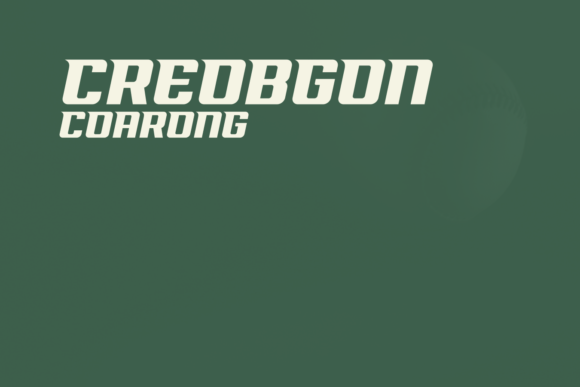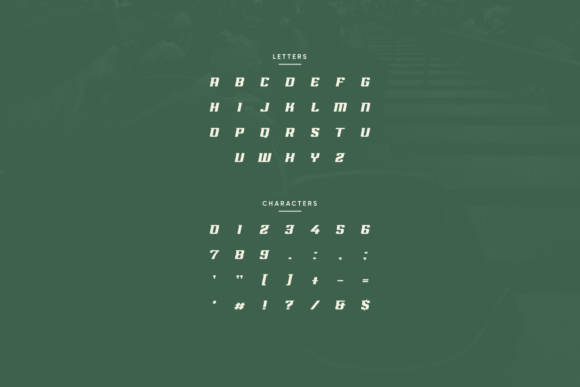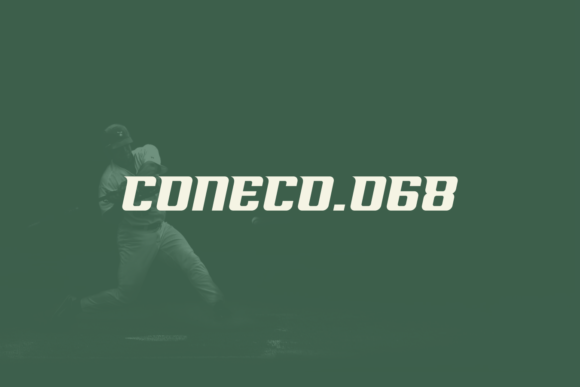
Introducing Groger Font: The Ultimate Modern Sport Font for Designers
In the world of typography, fonts play a crucial role in conveying the tone and personality of a design. For designers and crafters looking to add a touch of speed, racing, and roaring machines to their work, Groger Font is the perfect choice. This modern sport font is designed to evoke the thrill of high-octane action, making it ideal for sports themes, logos, headlines, posters, movie titles, magazines, and various other types of designs that require a strong and standout shade.
The Design and Features of Groger Font
Groger Font is an all-caps font that exudes power and energy with its strong, sharp corners and solid shape. The pointy corners of this font give it a unique and aggressive look, making it perfect for designs that require a bold statement. With its sleek and modern design, Groger Font is sure to grab attention and leave a lasting impression on your audience.
The Inspiration Behind Groger Font
Groger Font is inspired by the world of racing and high-performance machines. The font’s design is reminiscent of the speed and agility of sports cars, making it perfect for designers who want to convey a sense of speed and power in their work. Whether you’re designing a logo for a racing team or creating a poster for a sports event, Groger Font is the perfect choice.
Key Benefits of Using Groger Font
- Perfect for sports themes: Groger Font is designed specifically for sports-themed designs, making it the perfect choice for logos, posters, and other materials.
- All-caps design: The all-caps design of Groger Font makes it perfect for headlines, titles, and other applications where you want to make a bold statement.
- Strong and sharp corners: The strong and sharp corners of Groger Font give it a unique and aggressive look that is sure to grab attention.
- Solid shape with pointy corners: The solid shape and pointy corners of Groger Font make it perfect for designs that require a bold and powerful look.
Use Cases for Groger Font
Groger Font is a versatile font that can be used in a variety of design applications, including:
- Logos: Use Groger Font to create a bold and powerful logo for your sports team, racing team, or sports brand.
- Posters: Create eye-catching posters for sports events, racing tournaments, or fitness campaigns with Groger Font.
- Headlines: Use Groger Font to create bold and attention-grabbing headlines for your sports-themed designs.
- Movie titles: Add a touch of excitement and energy to your movie titles with Groger Font.
- Magazines: Use Groger Font to create bold and eye-catching headlines and titles for your sports-themed magazine.
Tips for Using Groger Font Effectively
To get the most out of Groger Font, here are some tips to keep in mind:
- Use it boldly: Groger Font is designed to be bold and attention-grabbing, so don’t be afraid to use it in large sizes and bold colors.
- Pair it with contrasting fonts: Pair Groger Font with contrasting fonts to create visual interest and add depth to your design.
- Experiment with colors: Try out different colors and gradients to add an extra layer of depth and interest to your design.
Groger Font is a powerful and modern sport font that is perfect for designers and crafters looking to add a touch of speed, racing, and roaring machines to their work. With its strong and sharp corners, solid shape, and pointy corners, Groger Font is sure to grab attention and leave a lasting impression on your audience. Whether you’re designing a logo, poster, headline, or movie title, Groger Font is the perfect choice.